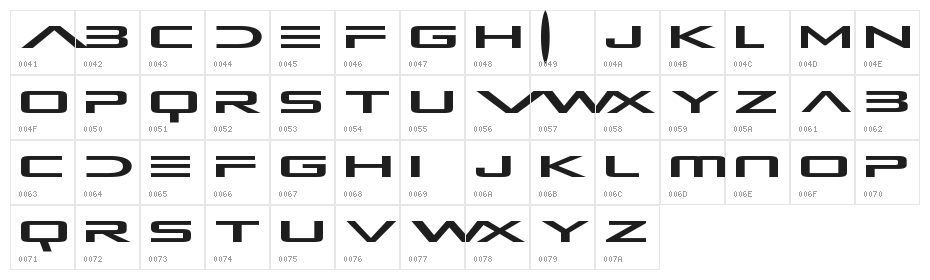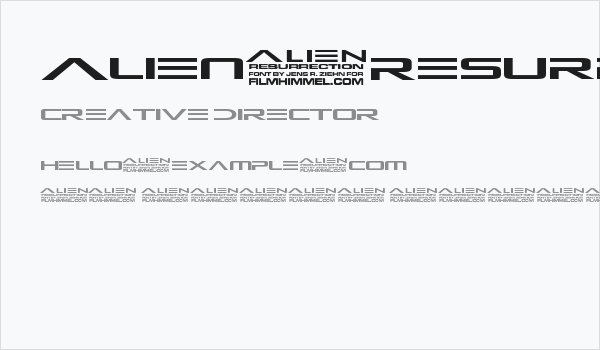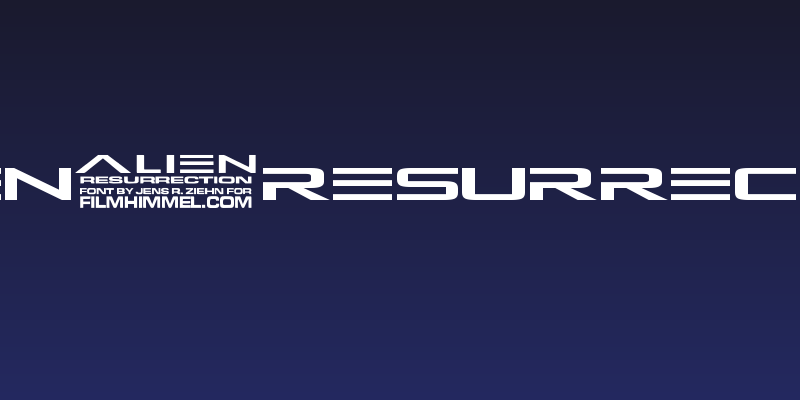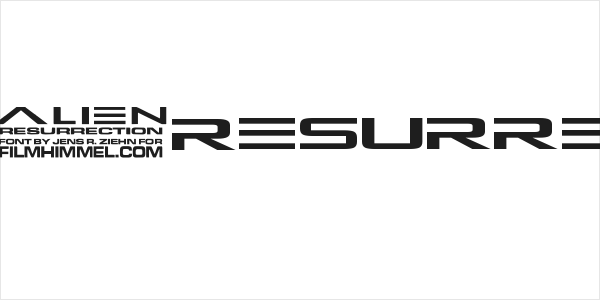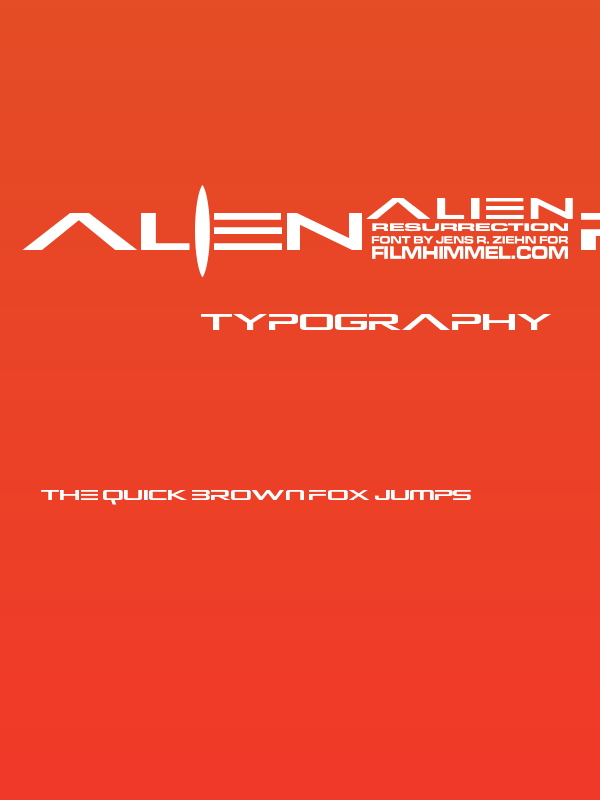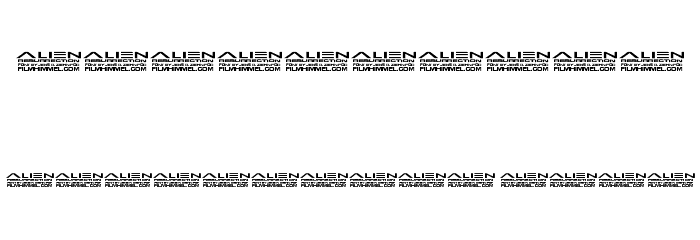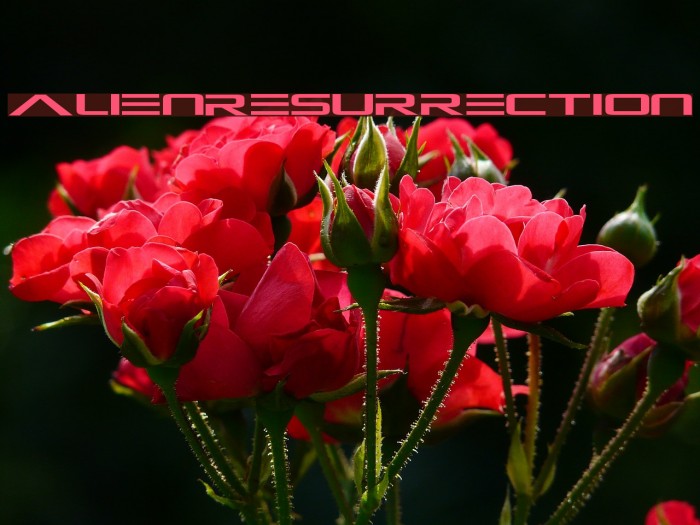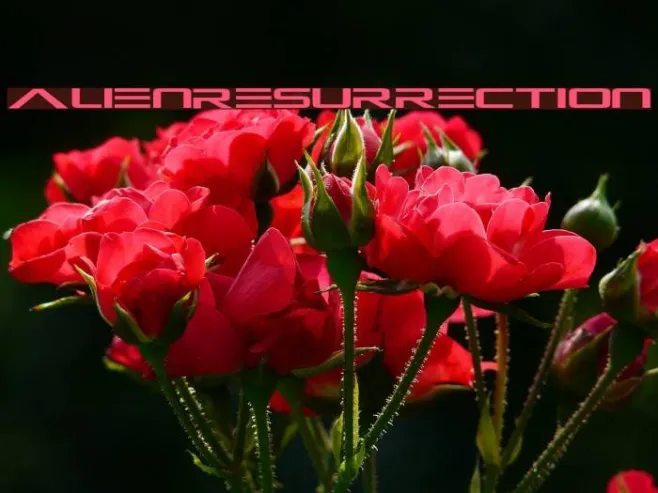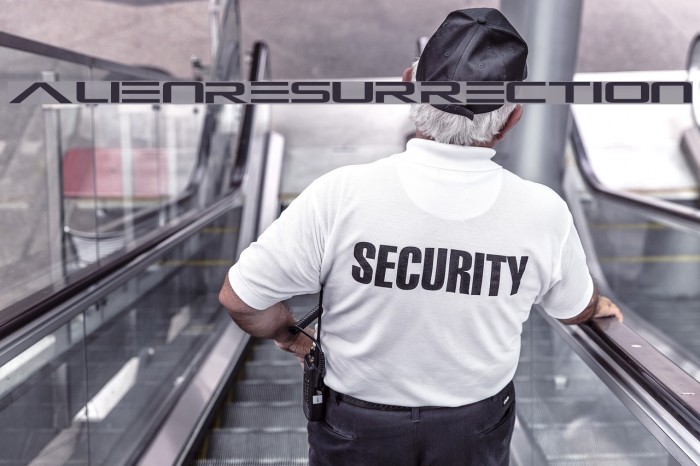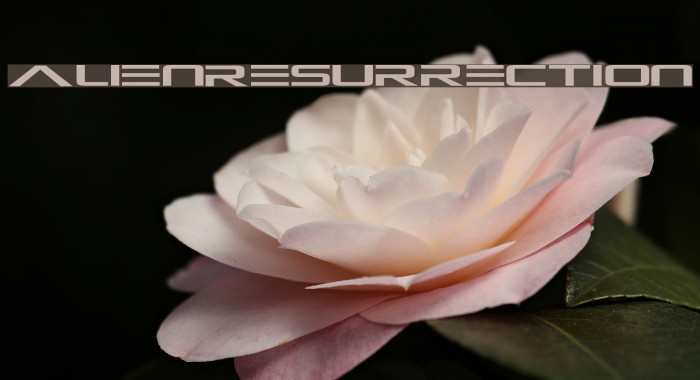
Alien-Resurrection Font
Alien-Resurrection Description
This font features a futuristic and sleek design, characterized by its sharp angles and geometric shapes. The uppercase letters exhibit a unique blend of straight lines and curves, creating a sense of movement and modernity. The lowercase letters maintain the same aesthetic, providing consistency across the typeface. The numerals are distinct and align well with the overall style, while the special characters add a touch of uniqueness. The font's design is reminiscent of science fiction themes, making it ideal for projects that require a modern and cutting-edge appearance.
| Proposed Projects | Ideal for sci-fi movie posters, tech company logos, video game titles, and futuristic branding. |